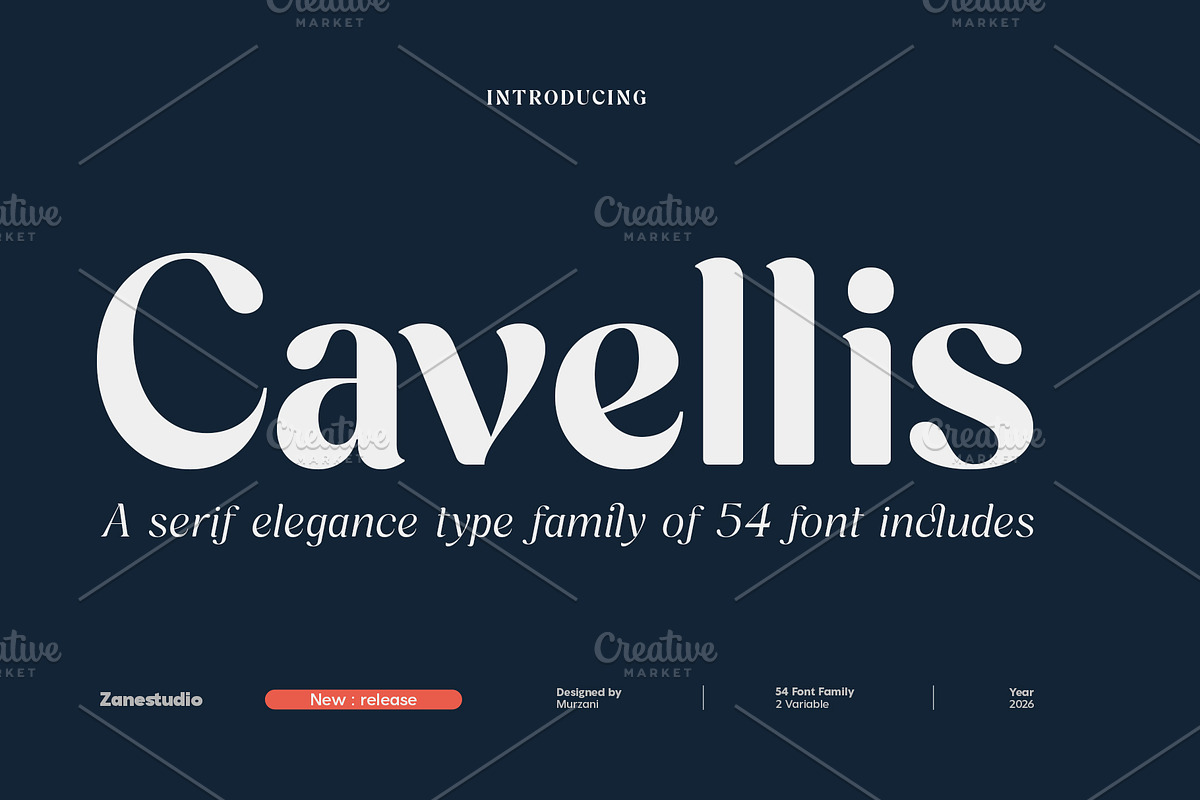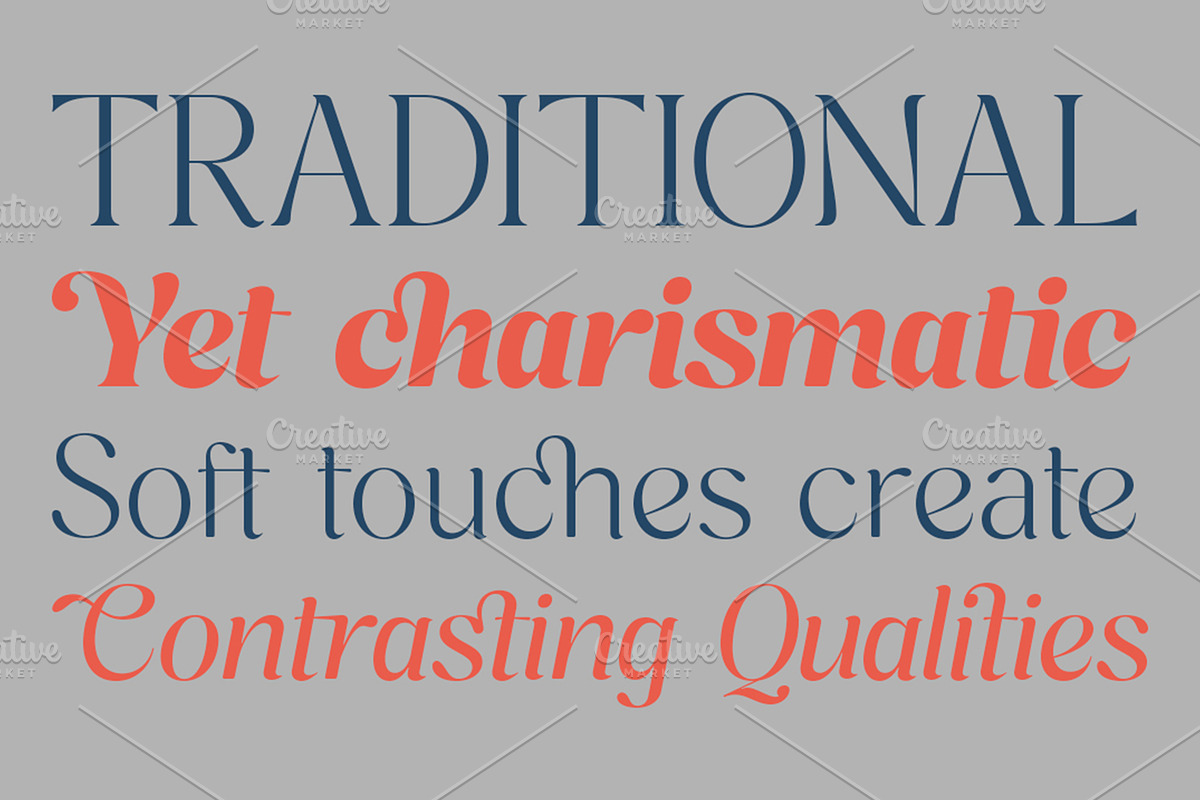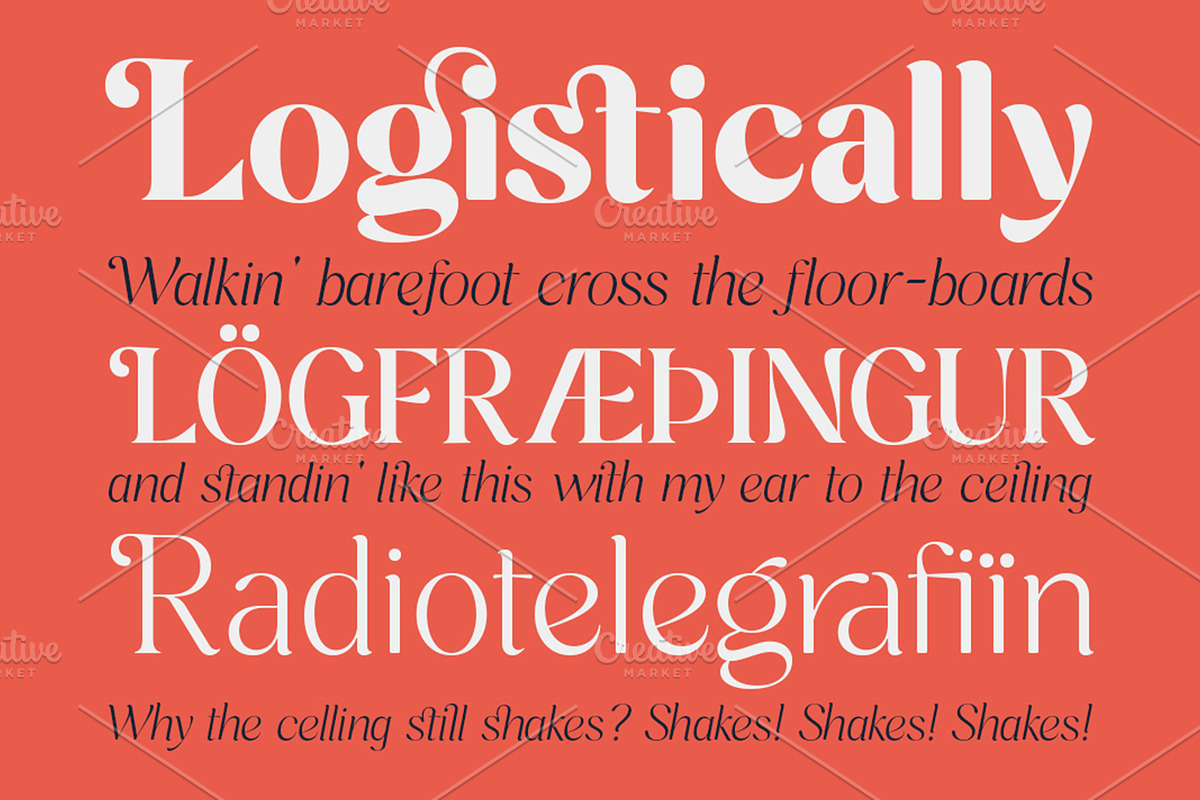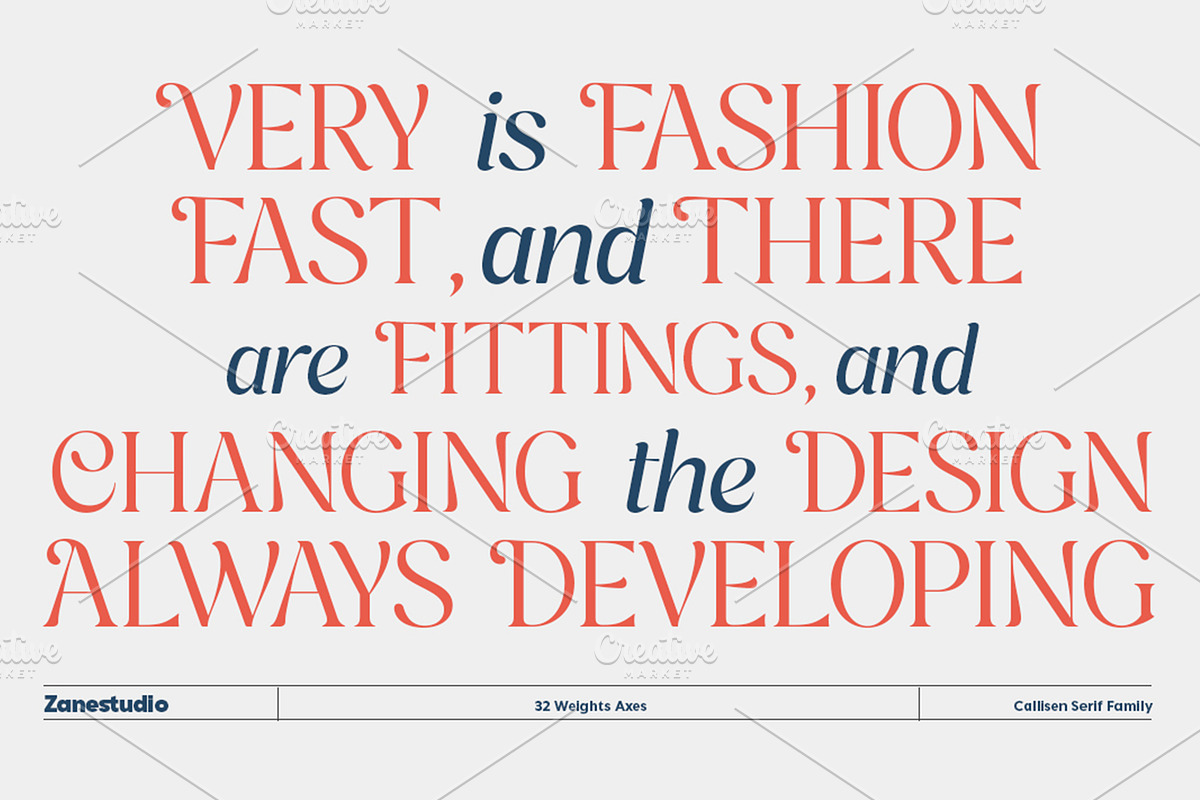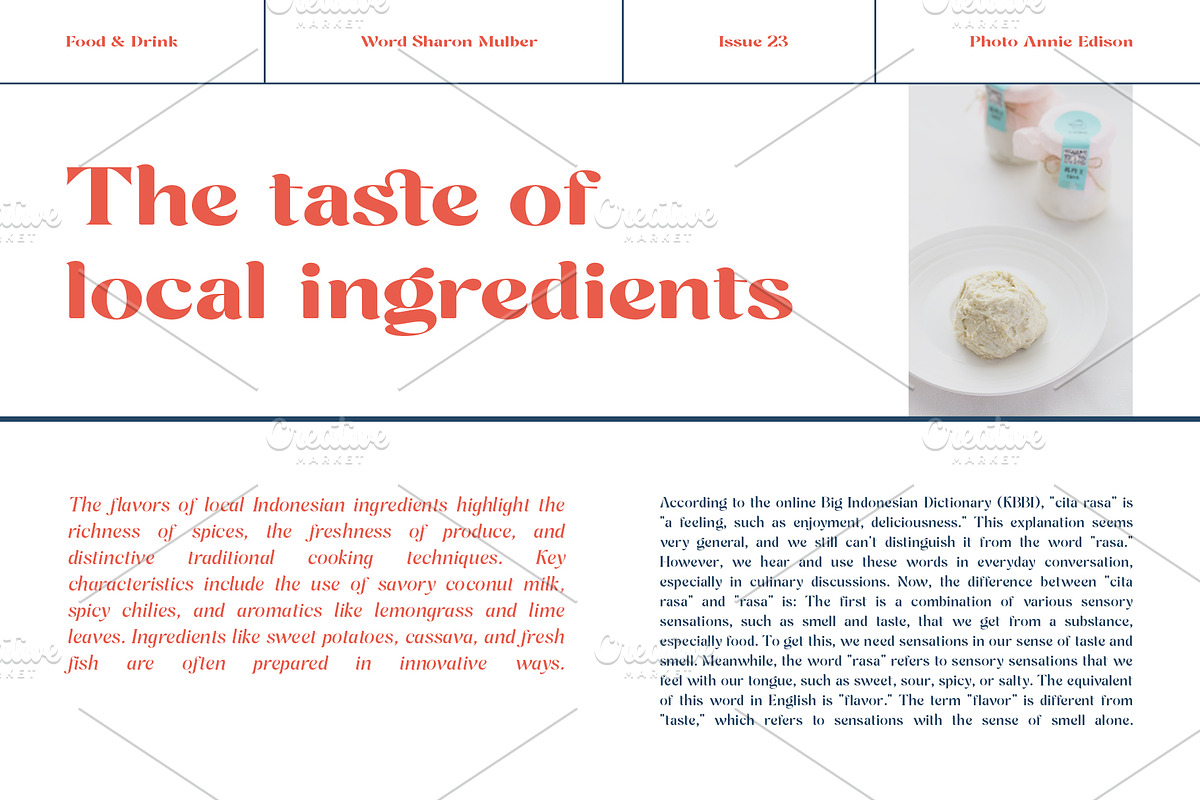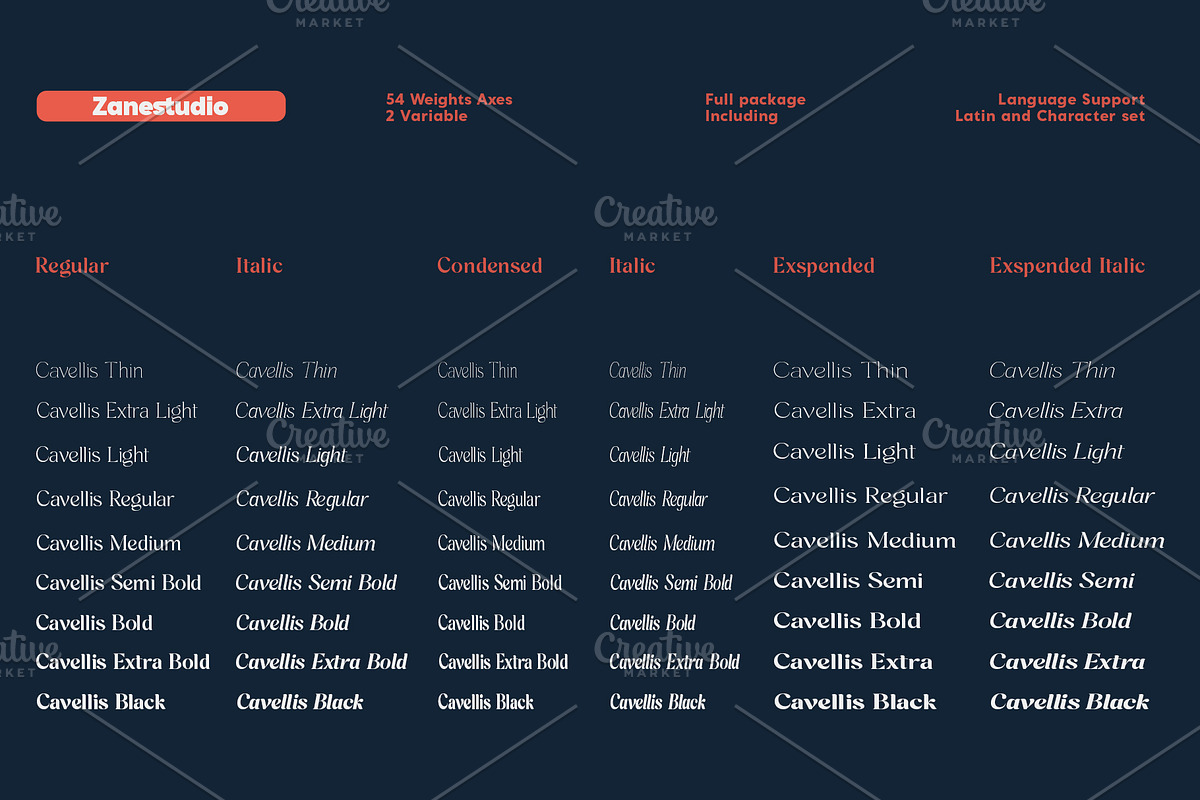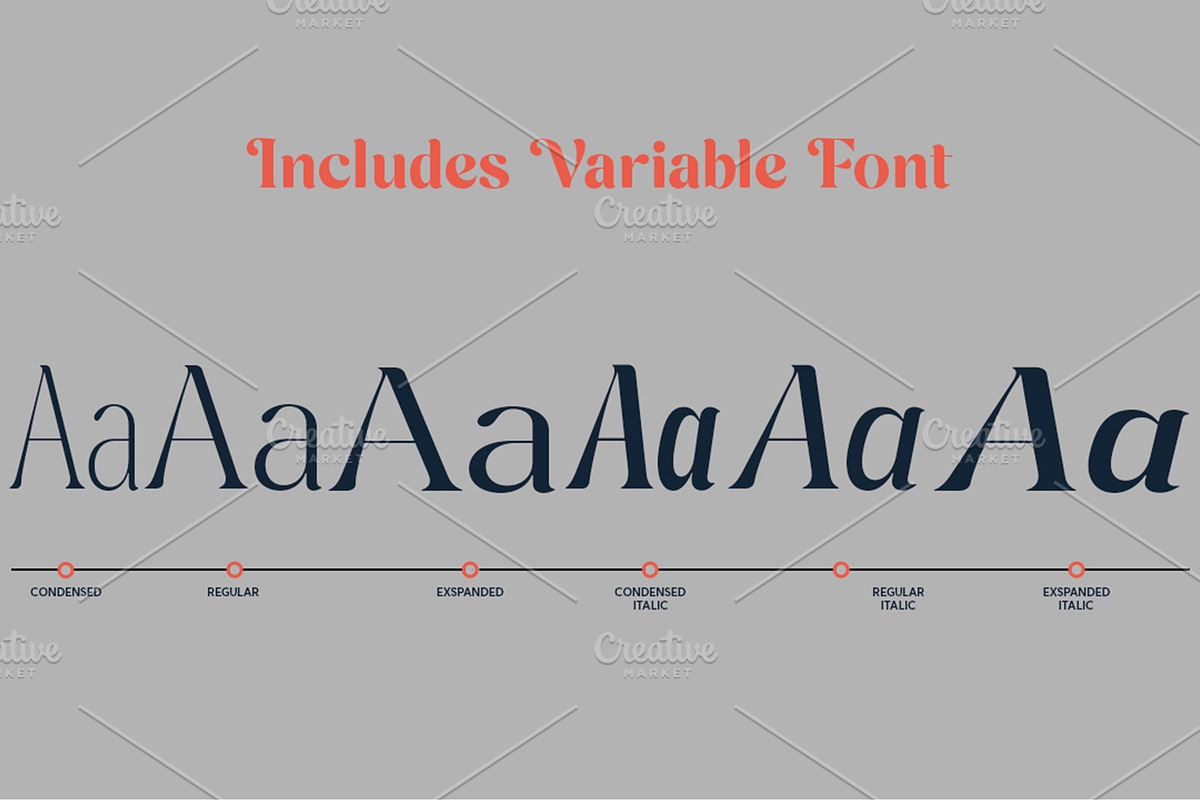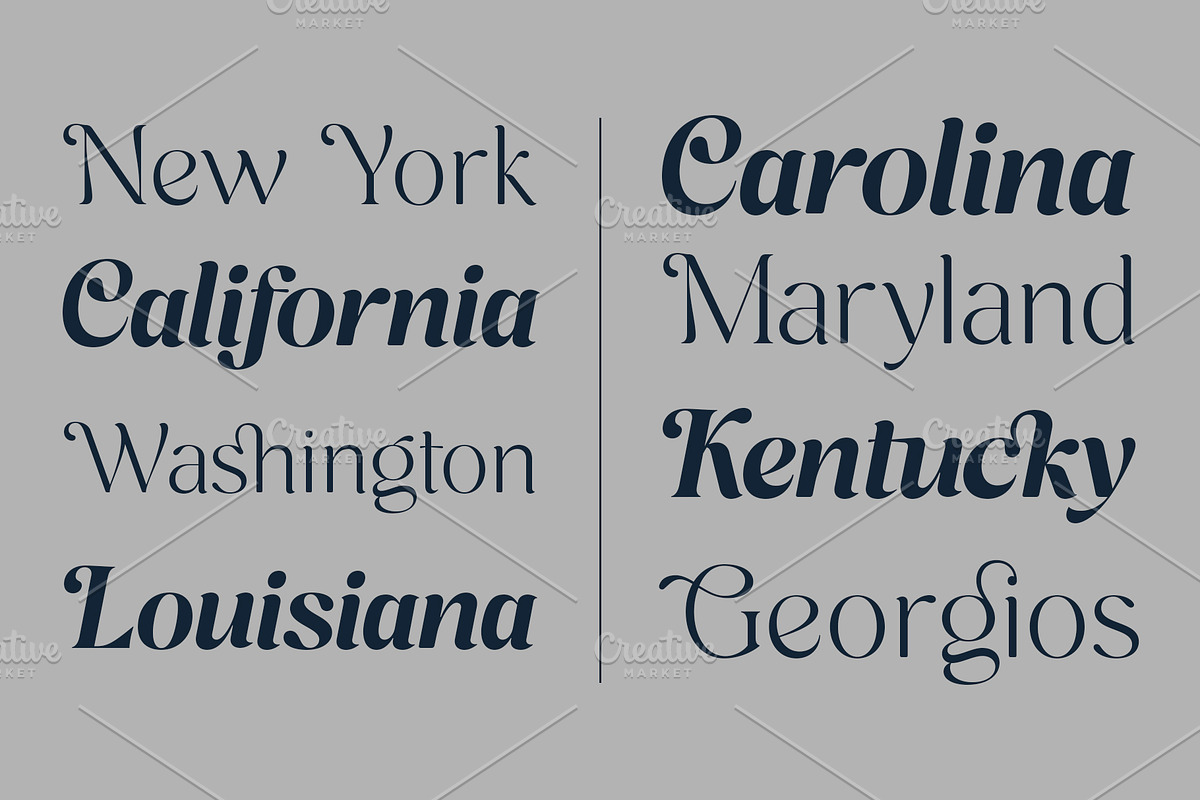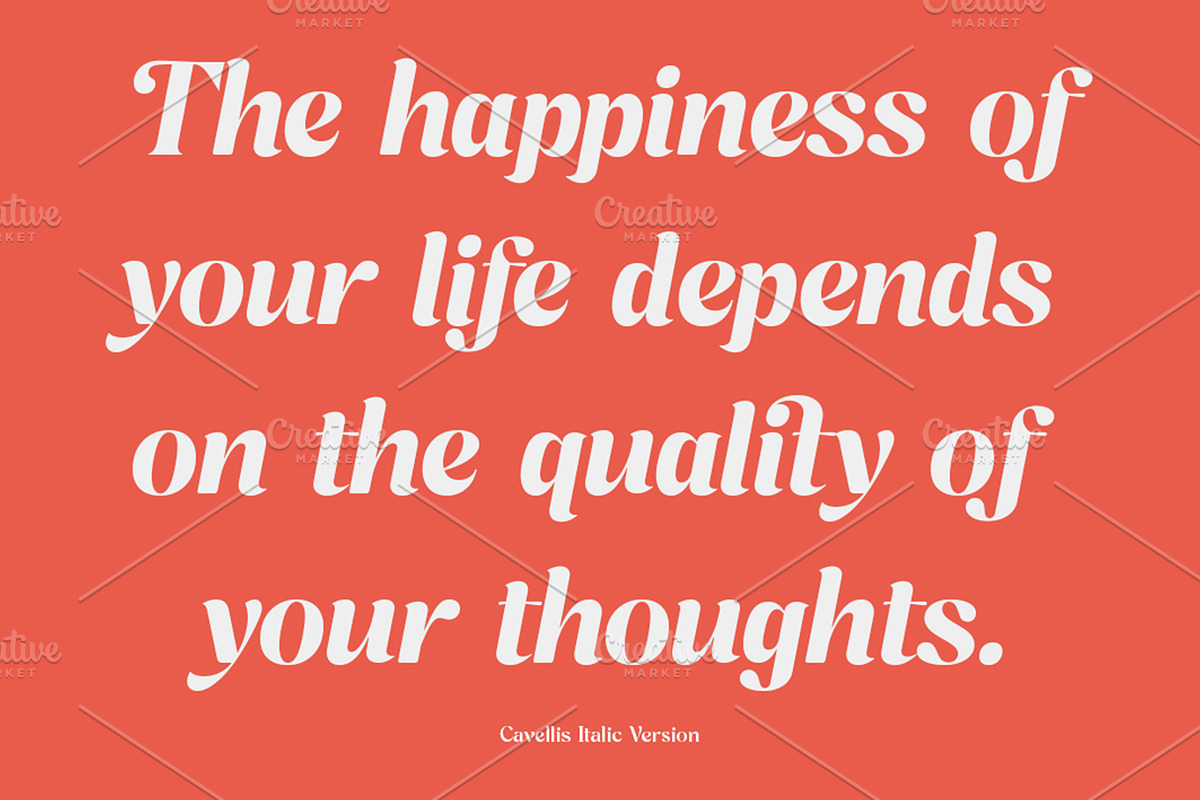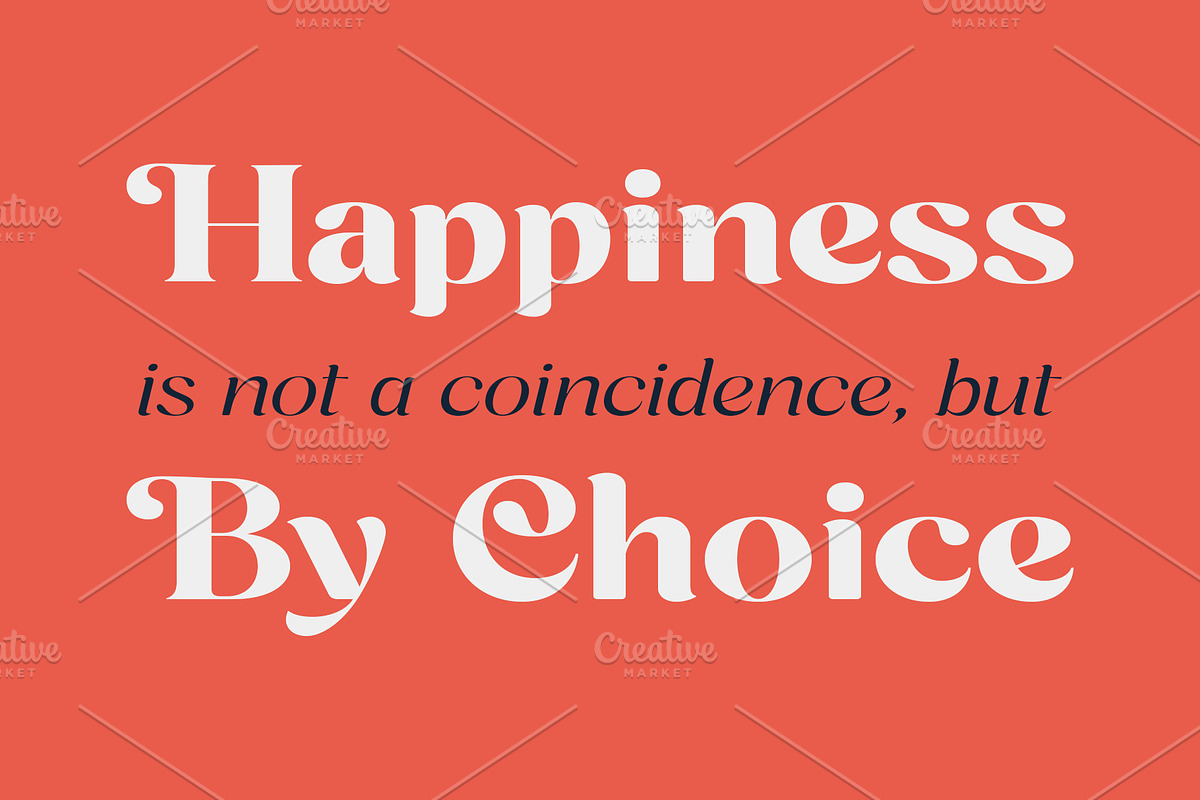
Cavellis
Cavellis is an elegant serif font family designed with smooth curves, graceful contrast, and timeless sophistication. Designed to convey a luxurious and modern editorial feel, Cavellis comes in 54 styles, including 2 variable fonts, making it highly versatile for both classic and contemporary design projects.
Perfect for branding, fashion magazines, luxury logos, wedding invitations, packaging, social media, and high-end typography, Cavellis combines beauty and legibility in every character. Its stylish alternates and balanced proportions create a premium visual experience in both print and digital media.
54 Font Styles
2 Variable Fonts
Ligatures & Alternates
Elegant Serif Styles
Cavellis is designed for creatives who want typography that feels sophisticated, artistic, and effortlessly elegant.